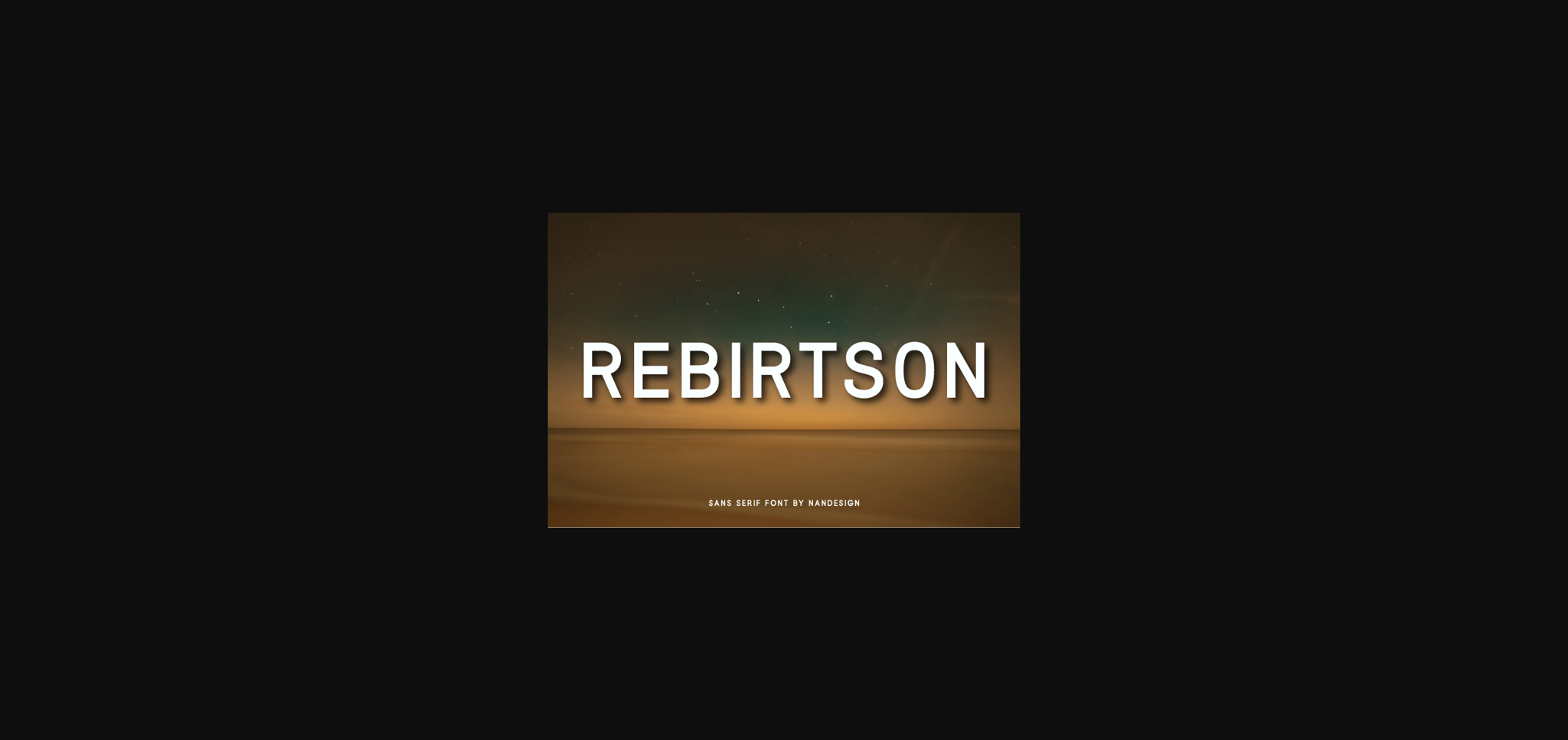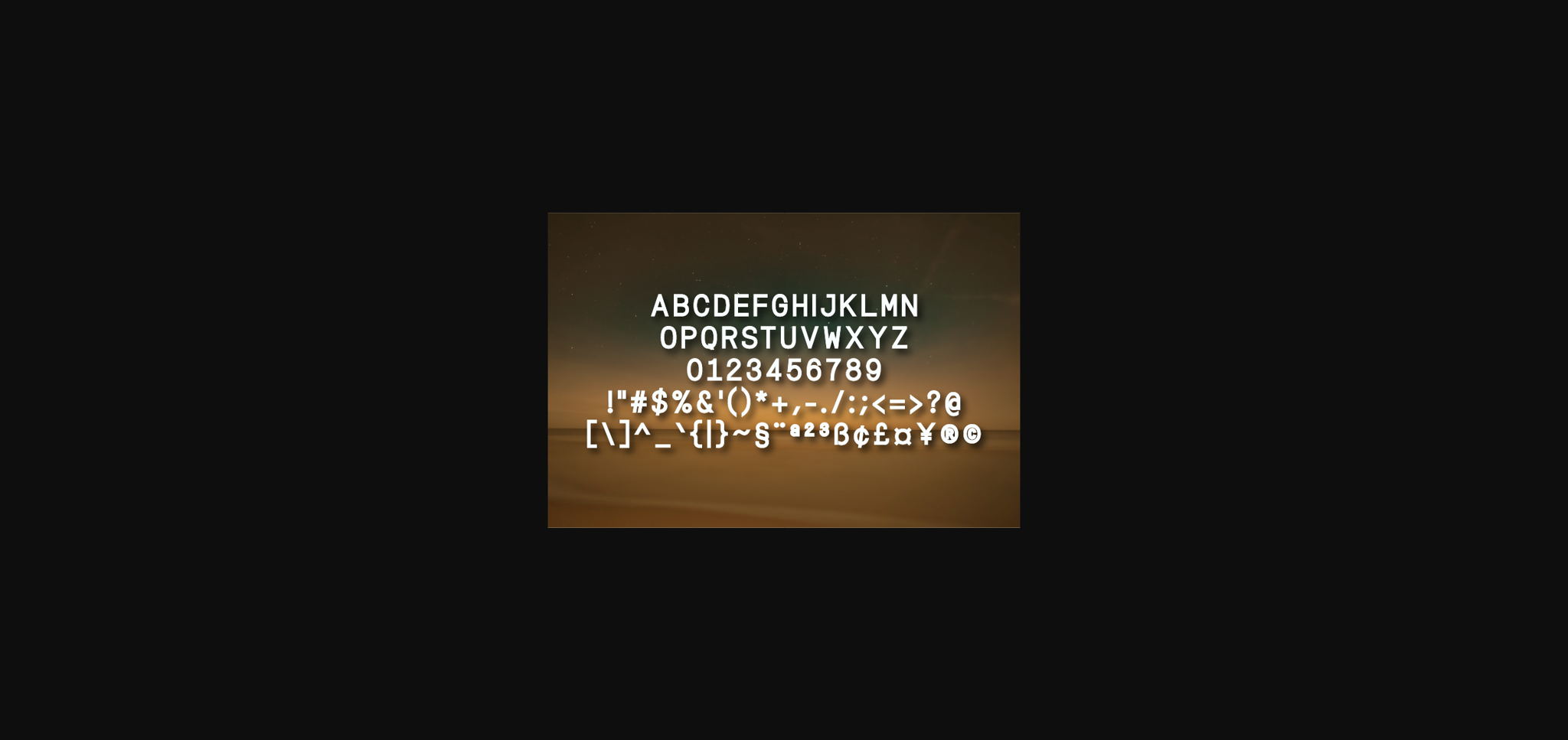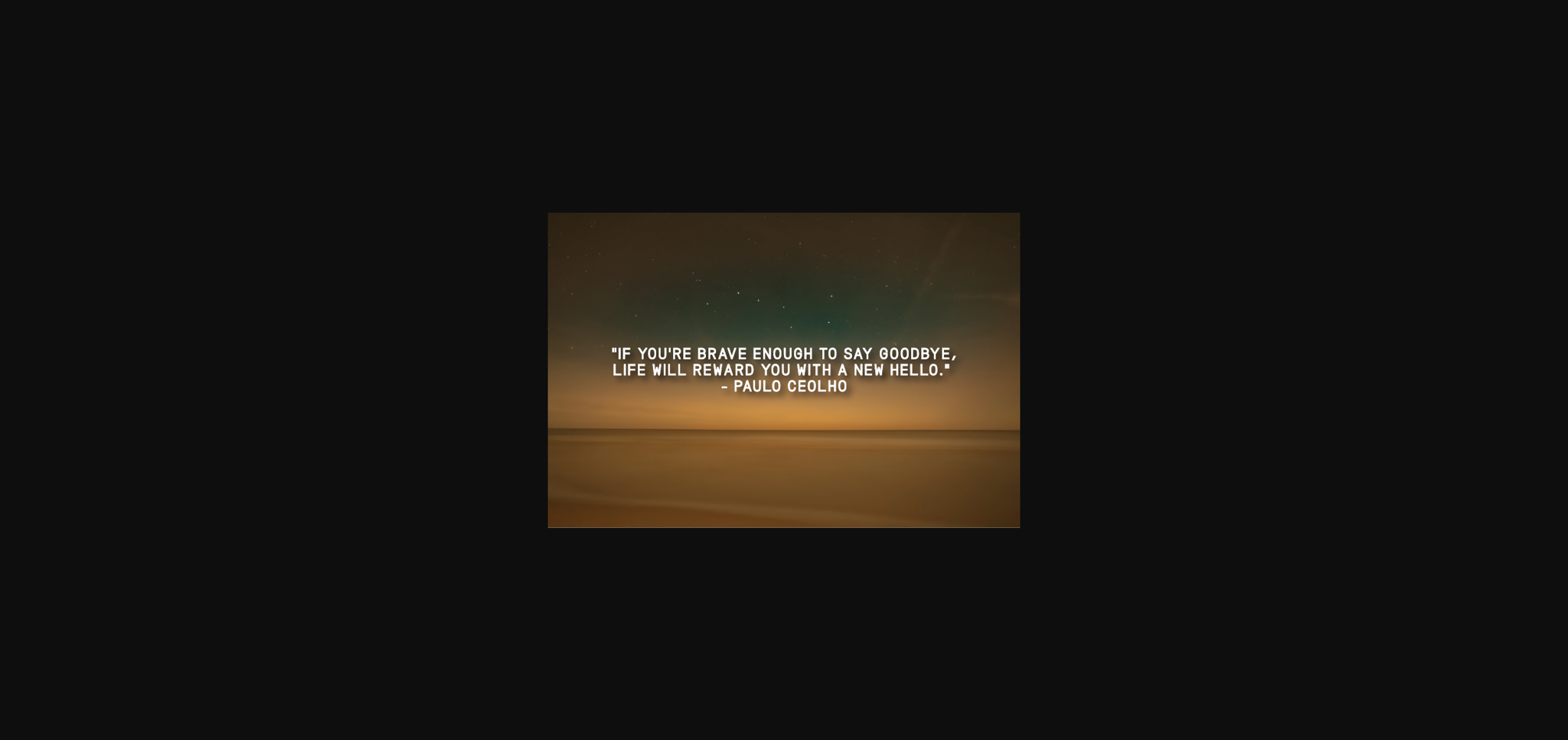
About Rebirtson Font
Rebirtson is a minimal and neat sans serif font. It can easily be matched to an incredibly large set of projects, so add it to your creative ideas and notice how it makes them stand out!